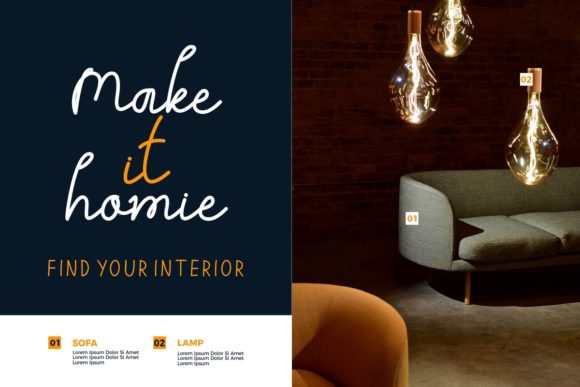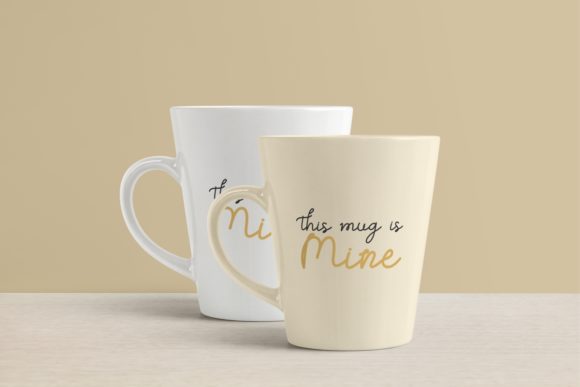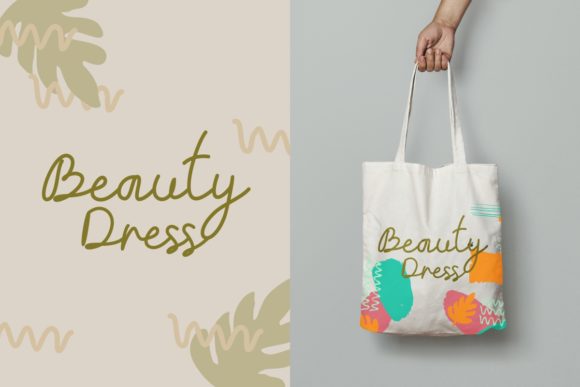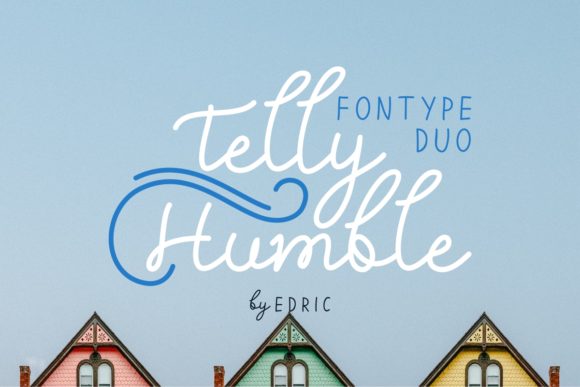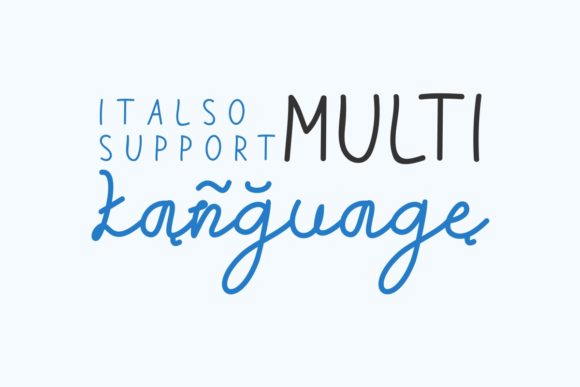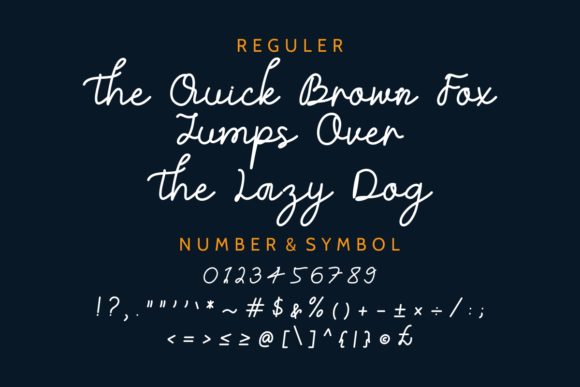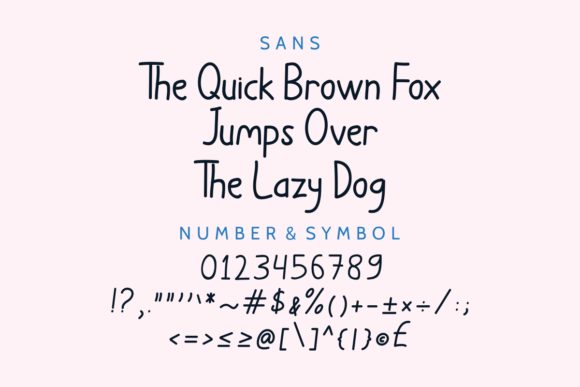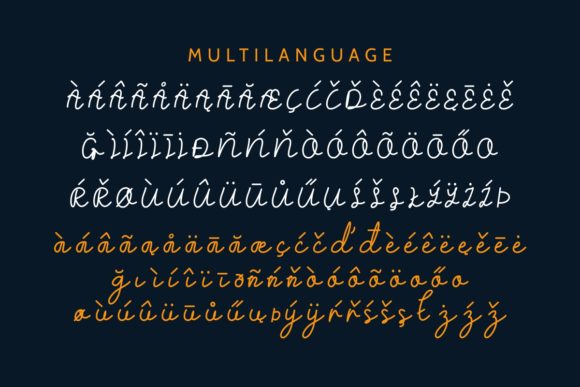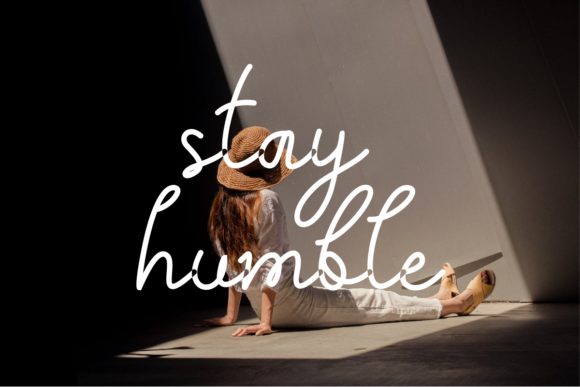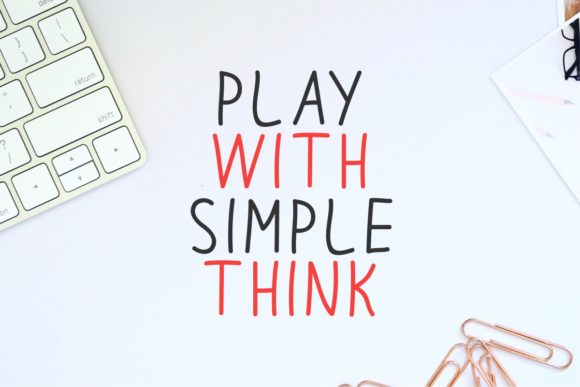
HomeScript FontsTelly Humble Font Script Fonts Telly Humble Font FacebookXPinterestWhatsApp Telly Humble Font Poster 2 Telly Humble Font Poster 3 Telly Humble Font Poster 4 Telly Humble Font Poster 5 Telly Humble Font Poster 6 Telly Humble Font Poster 7 Telly Humble Font Poster 8 Telly Humble Font Poster 9 Telly Humble Font Poster 10 Telly Humble Font Poster 11 Telly Humble Font Poster 12 About Telly Humble Font Telly Humble is a sweet and playful handwritten font with a unique approach to lettering. DOWNLOAD ON CREATIVE FABRICAThis font is sold and delivered by Creative Fabrica. Font Canyon may earn a commission if you buy through this link. People also explored Museo Sans Freeday Font Raisyah Font Taufy Font Astayfattony Font Klotee Ministro Font Sweet Taryn Font Bonsai 364 0 TagsTelly Humble Font Previous articleAmayda FontNext articleGreatquest Font LEAVE A REPLY Cancel reply Comment: Please enter your comment! Name:* Please enter your name here Email:* You have entered an incorrect email address! Please enter your email address here Website: Save my name, email, and website in this browser for the next time I comment. Personal Use Free Einstaint Personal Use Free Read more about this font Adrenaline Personal Use Free Read more about this font Klotee Personal Use Free Read more about this font Berry Personal Use Free Read more about this font BLOG Modern Sans-Serif Fonts That Brands Love in 2025 In 2025, modern sans-serif fonts remain a top choice for brands looking to project clarity, professionalism, and... The 10 Best Handwriting Fonts to Add Personality to Your Designs How to Install and Use Fonts on Windows, macOS, and Web Projects Best Fonts for YouTube Videos: Make Your Thumbnails Stand Out